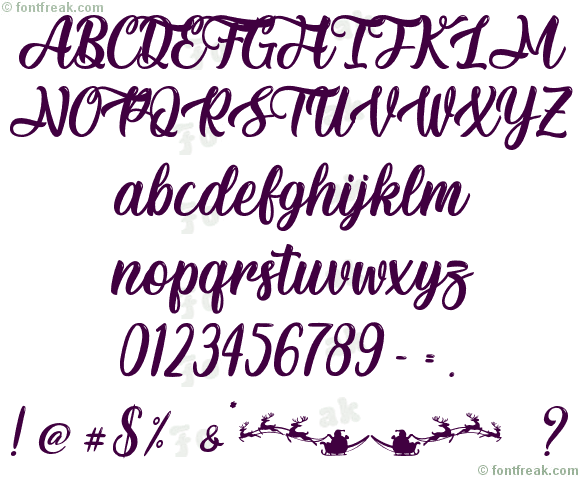
ChristmasSquad-PersonalUse
About ChristmasSquad-PersonalUse
The ChristmasSquad-PersonalUse font by Suthi Srisopha is a beautifully crafted script font that embodies the festive spirit of the holiday season. This decorative typeface features elegant, flowing strokes that create a whimsical yet sophisticated appearance. With its moderate stroke weight and balanced contrast, the font exudes warmth and charm, making it an excellent choice for various seasonal designs. The letters are well-spaced, ensuring legibility while maintaining a playful and inviting style, perfect for capturing the joyous essence of Christmas.
This font is particularly well-suited for a range of creative projects. It shines in applications such as holiday greeting cards, where its festive flair can enhance heartfelt messages. Additionally, ChristmasSquad-PersonalUse is ideal for decorating gift tags, adding a personal touch to presents. It also works wonderfully for festive wedding invitations, helping couples convey their love in a unique and stylish way. For those in the food industry, restaurant menus can benefit from this font, giving a warm, inviting feel to seasonal specials. Content creators and graphic designers will find it invaluable for social media posts and promotional materials, especially during the holiday season.
Targeting graphic designers, small business owners, and content creators, this font provides a versatile tool for anyone looking to elevate their holiday-themed projects. Its unique character and festive design make it a standout choice amidst a sea of conventional typefaces. The ChristmasSquad-PersonalUse font free download offers an opportunity to infuse seasonal cheer into your designs without compromising on quality. Whether you're crafting a cozy holiday card or an eye-catching advertisement, this font will undoubtedly enhance your creative work and resonate with your audience.